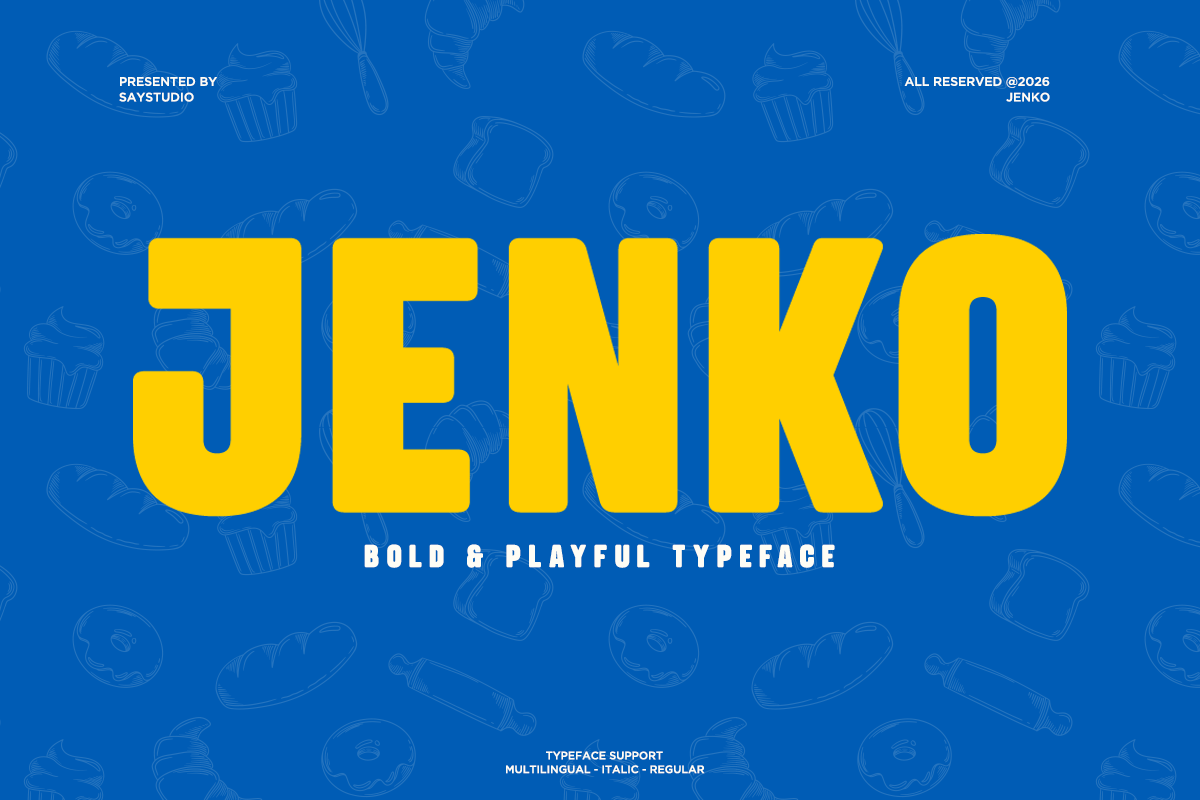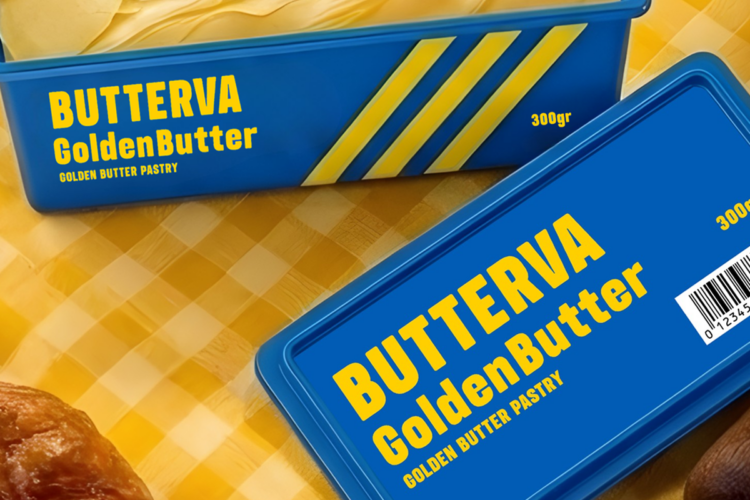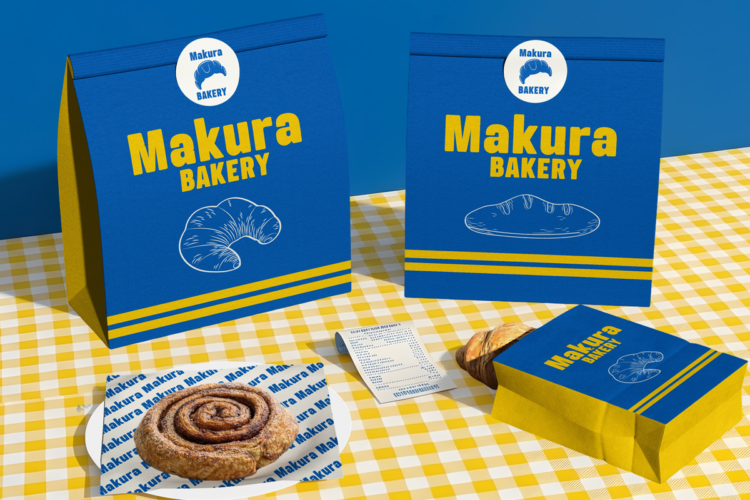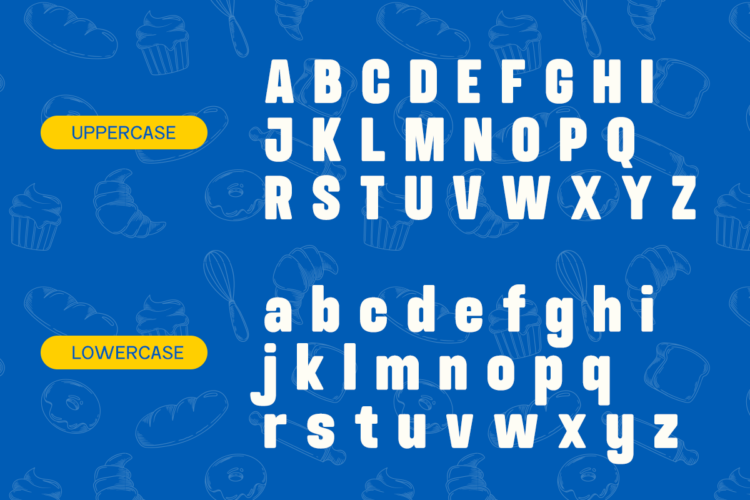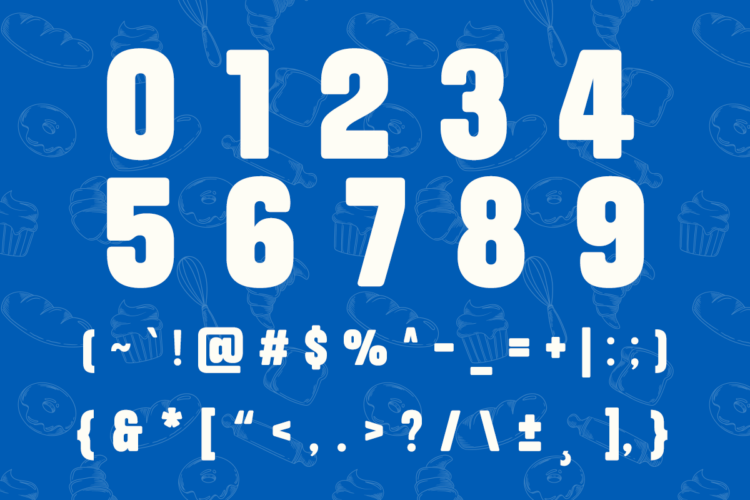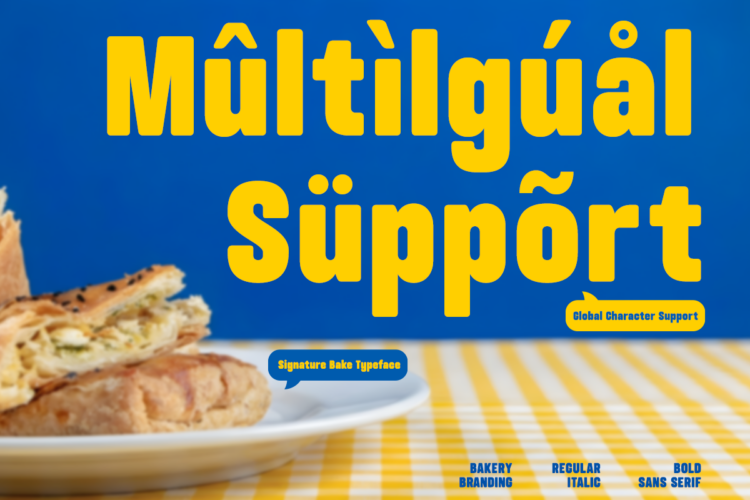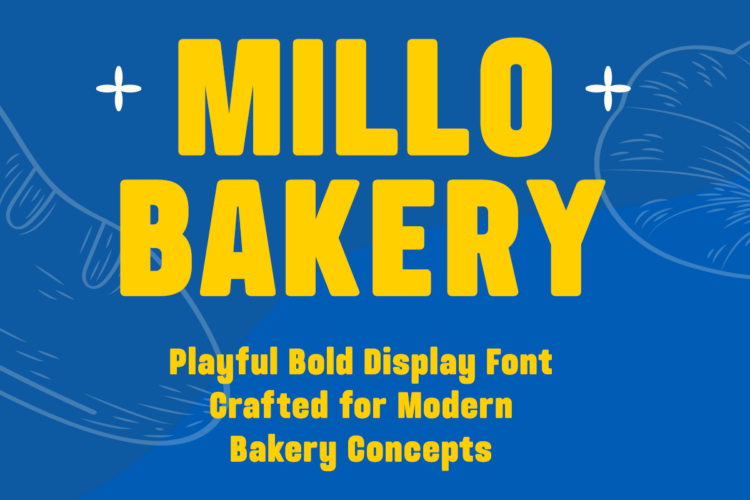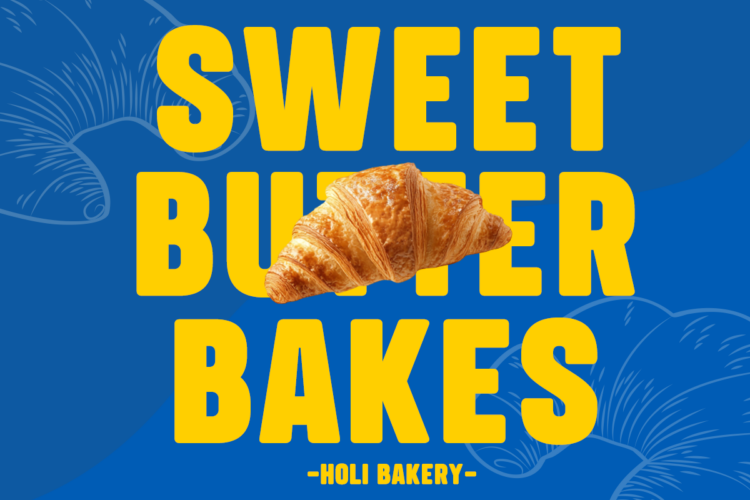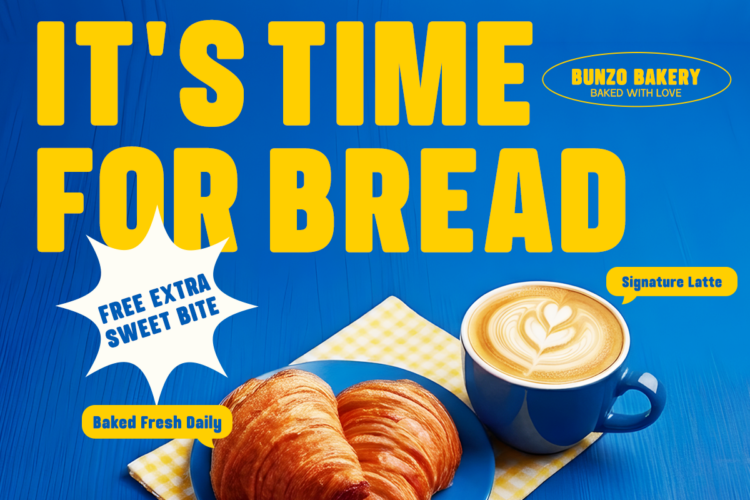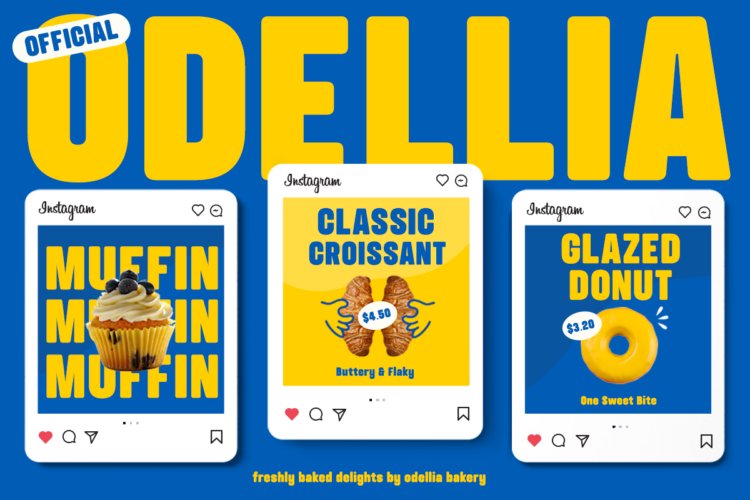
Jenko is a bold sans serif font designed to bring strong personality and playful energy into modern design projects. With its thick letterforms, clean structure, and rounded edges, Jenko delivers a powerful yet friendly visual appearance that instantly attracts attention. The bold weight ensures excellent visibility, making it perfect for impactful headlines and expressive branding.
This font works beautifully for food branding, bakery packaging, snack labels, kids products, posters, menus, social media graphics, and advertising materials. Its cheerful and approachable character makes it ideal for brands that want to communicate warmth, fun, and creativity while maintaining modern design aesthetics.
Jenko combines bold typography with simple geometric construction, allowing designers to create vibrant layouts and memorable brand identities. Whether used for packaging, logos, or promotional visuals, Jenko provides a playful yet professional typographic voice for contemporary design.
Bold & Playful Sans – Jenko